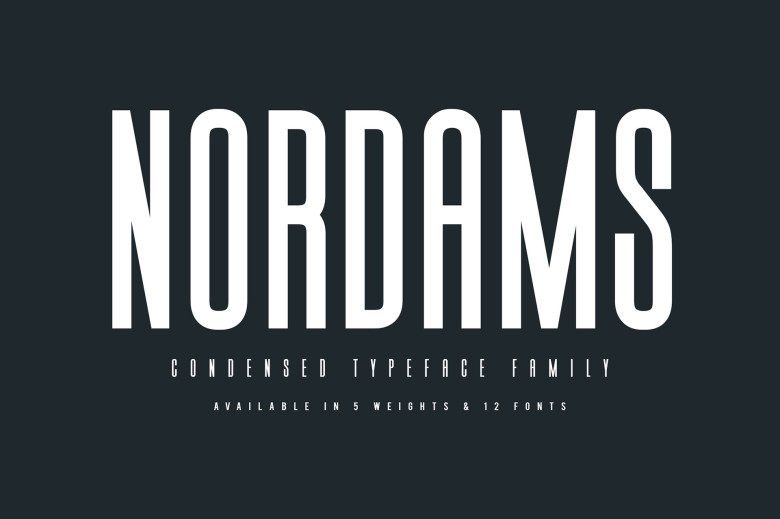
Nordams Font
Please note that Nordams Font must be purchased for commercial use. You are welcome to download and test this font for personal and non-commercial projects at no cost. This high-impact, bold sans serif typeface is perfectly suited for a vast array of modern design applications, including corporate logos, dynamic magazine headlines, energetic sports apparel branding, cutting-edge video game titles, large-scale posters and billboards, engaging social media graphics, and website headers that demand immediate, authoritative presence.
The reason Nordams Font is genuinely exciting is its exceptional versatility coupled with a powerful, confident aesthetic. It is specifically designed to be highly readable even in condensed settings, and its clean, geometric structure ensures a contemporary, professional finish. Whether you need to convey strength, reliability, or forward momentum, Nordams Font delivers. Its massive style range, including various widths and outlines, provides an unmatched toolkit for complex typographical layouts and branding consistency across different media.
The Nordams Font family is truly extensive, offering a comprehensive set of styles that typically includes multiple weights such as Thin, Light, Regular, Medium, and Bold, all available with corresponding Italics. Furthermore, unique styles like Thin-Outline and Condensed variations are often part of the package, expanding its utility far beyond a standard sans serif. For a versatile, modern, and memorable typeface that can handle any project challenge, get your Nordams Font Free Download today.